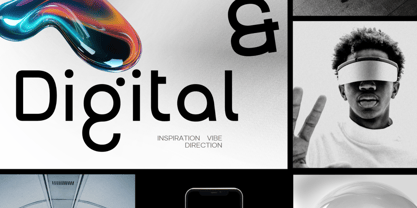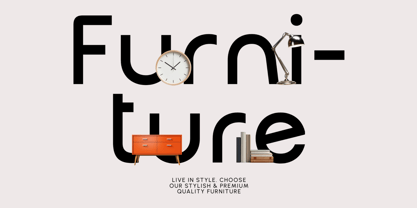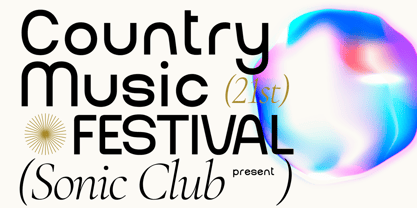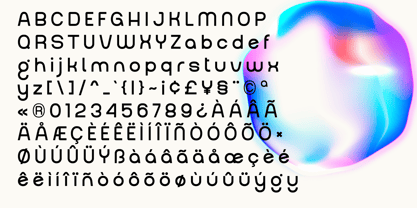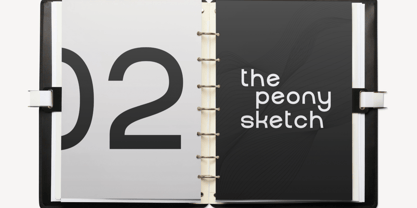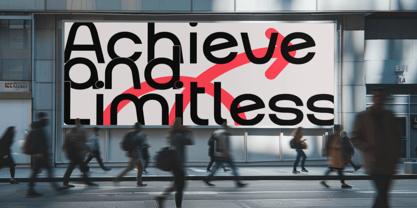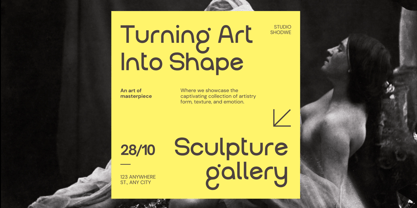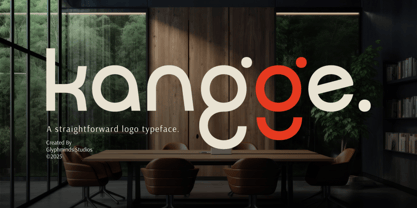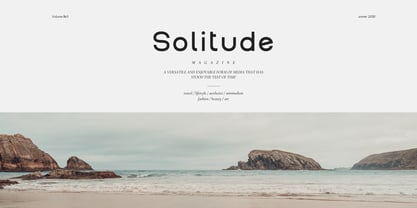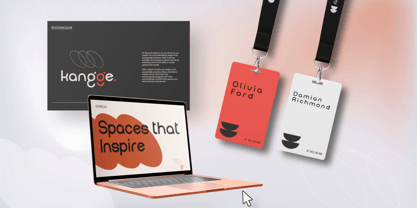
Kangge
Looking for a professional and modern typeface for your branding projects? Meet Kangge, a straightforward yet stylish logo font designed to elevate your brand identity. With a clean and minimalistic look, Kangge is perfect for logos, business branding, website headers, packaging, and more.
Crafted with precision, this font is versatile, making it ideal for corporate, tech, fashion, and creative industries. The balance between bold structure and smooth curves makes it an excellent choice for any modern design.
✔️ Perfect for logos & branding
✔️ High-quality, unique, and scalable
✔️ Professional & sleek typography